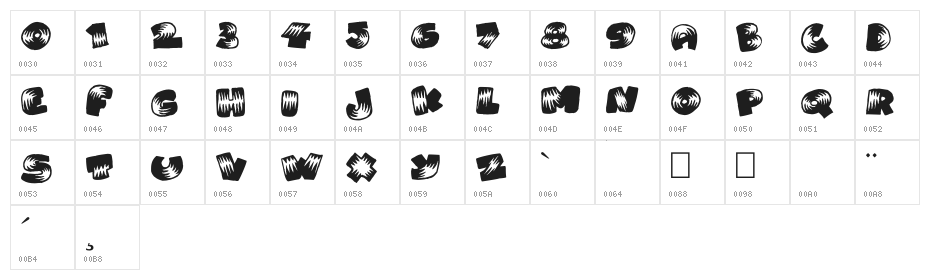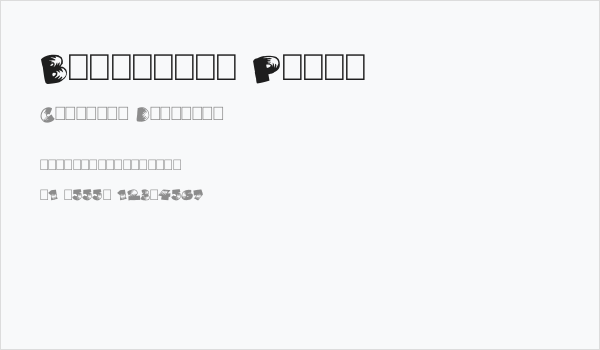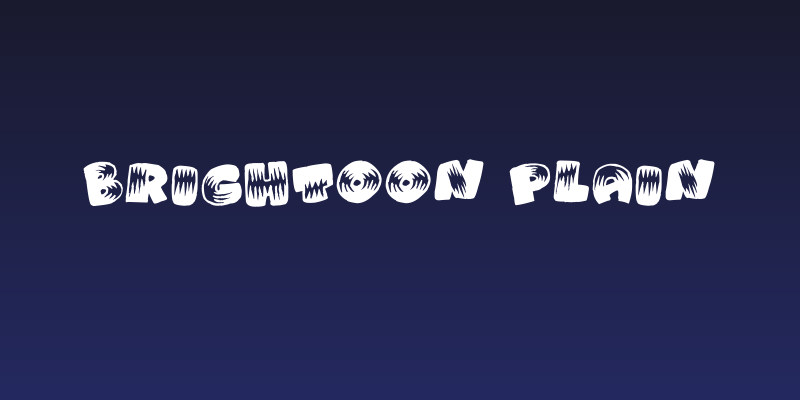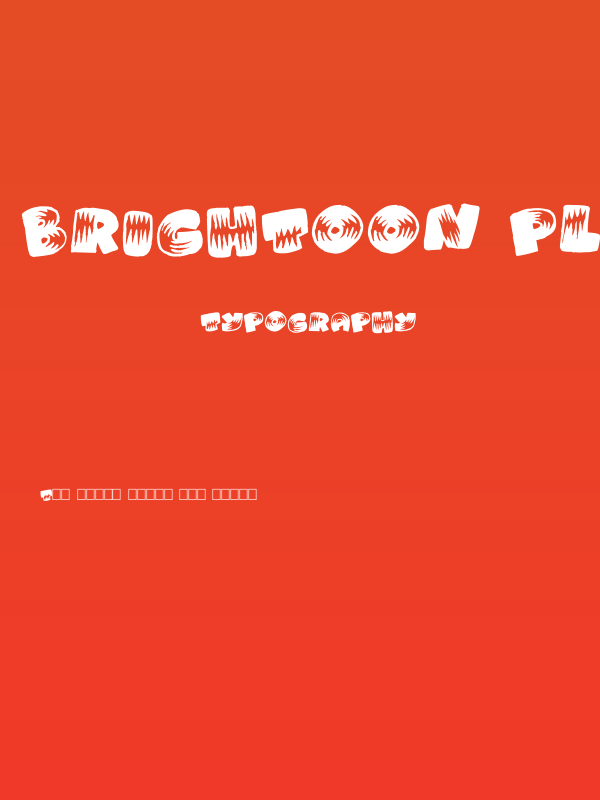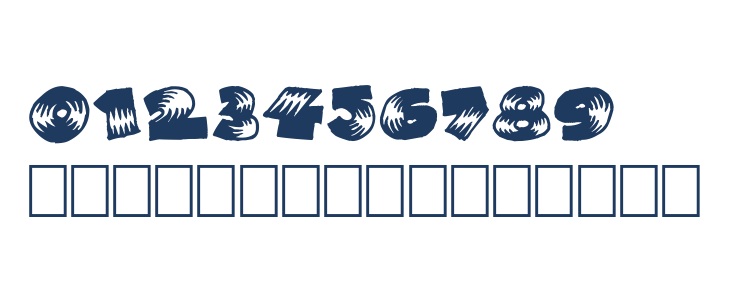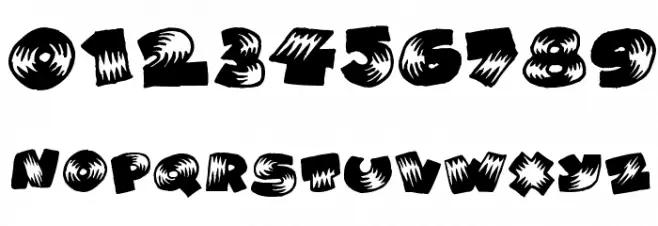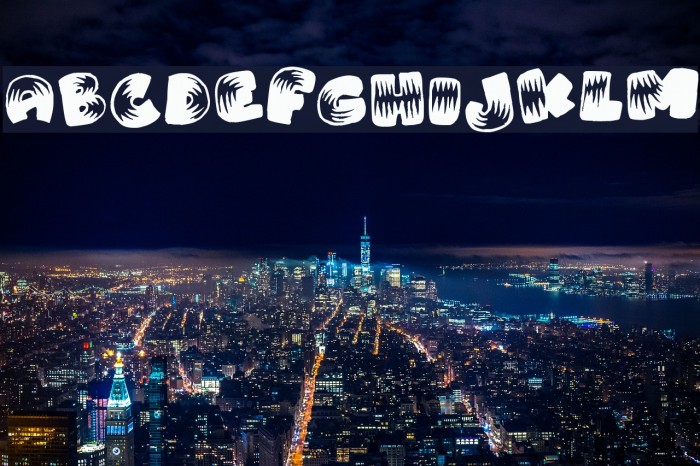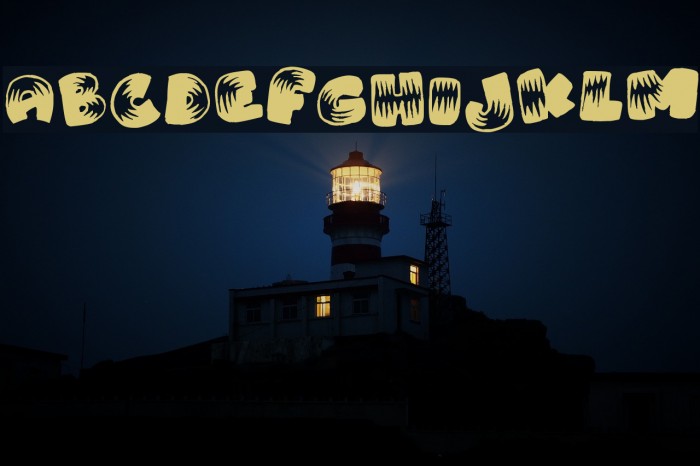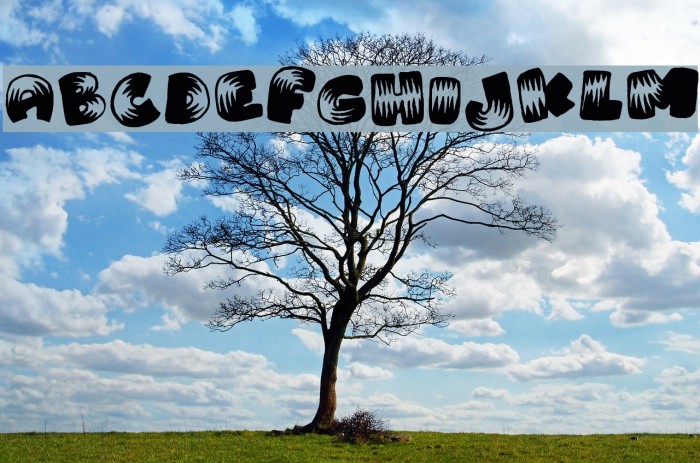
Brightoon Plain Font
Brightoon Plain Description
This font features a bold and dynamic style with a playful, energetic vibe. The characters are designed with a unique pattern that resembles brush strokes or waves, giving them a sense of motion and depth. The boldness of the letters makes them stand out, while the intricate detailing within each character adds a layer of complexity and visual interest. This font is perfect for projects that require a fun and eye-catching display, such as posters, event flyers, or branding materials that aim to convey excitement and creativity.
| Proposed Projects | Ideal for posters, event flyers, branding, and creative projects. |